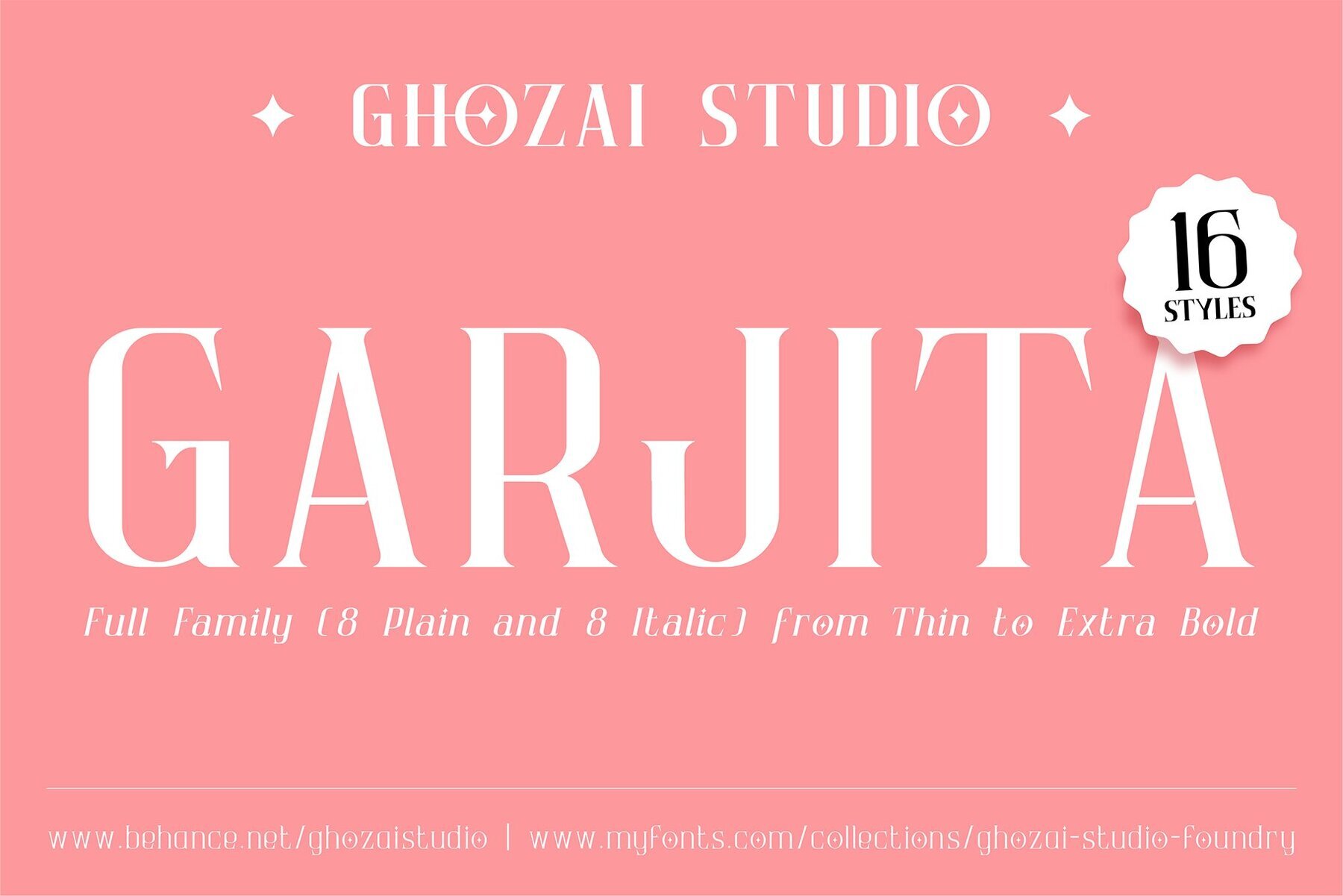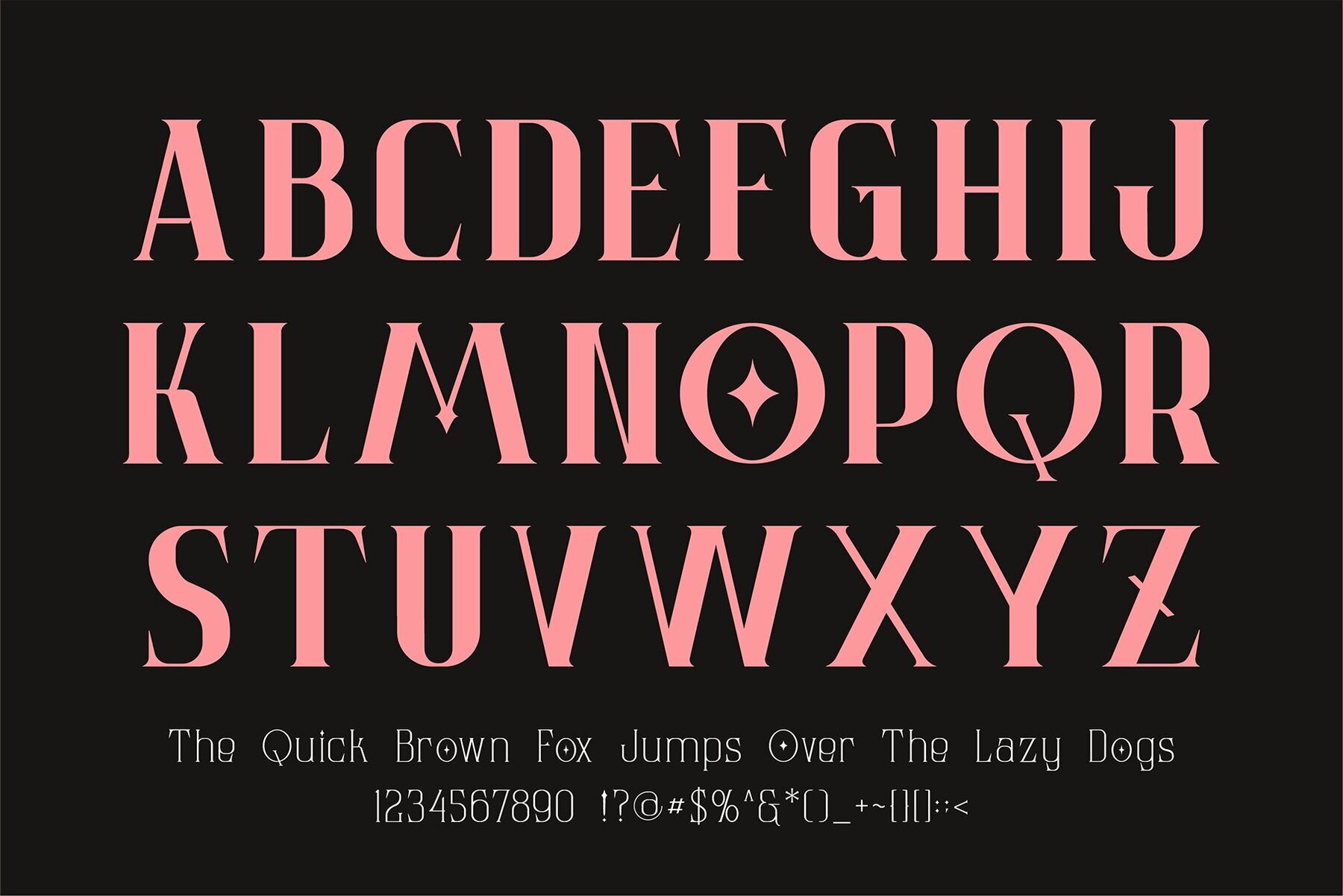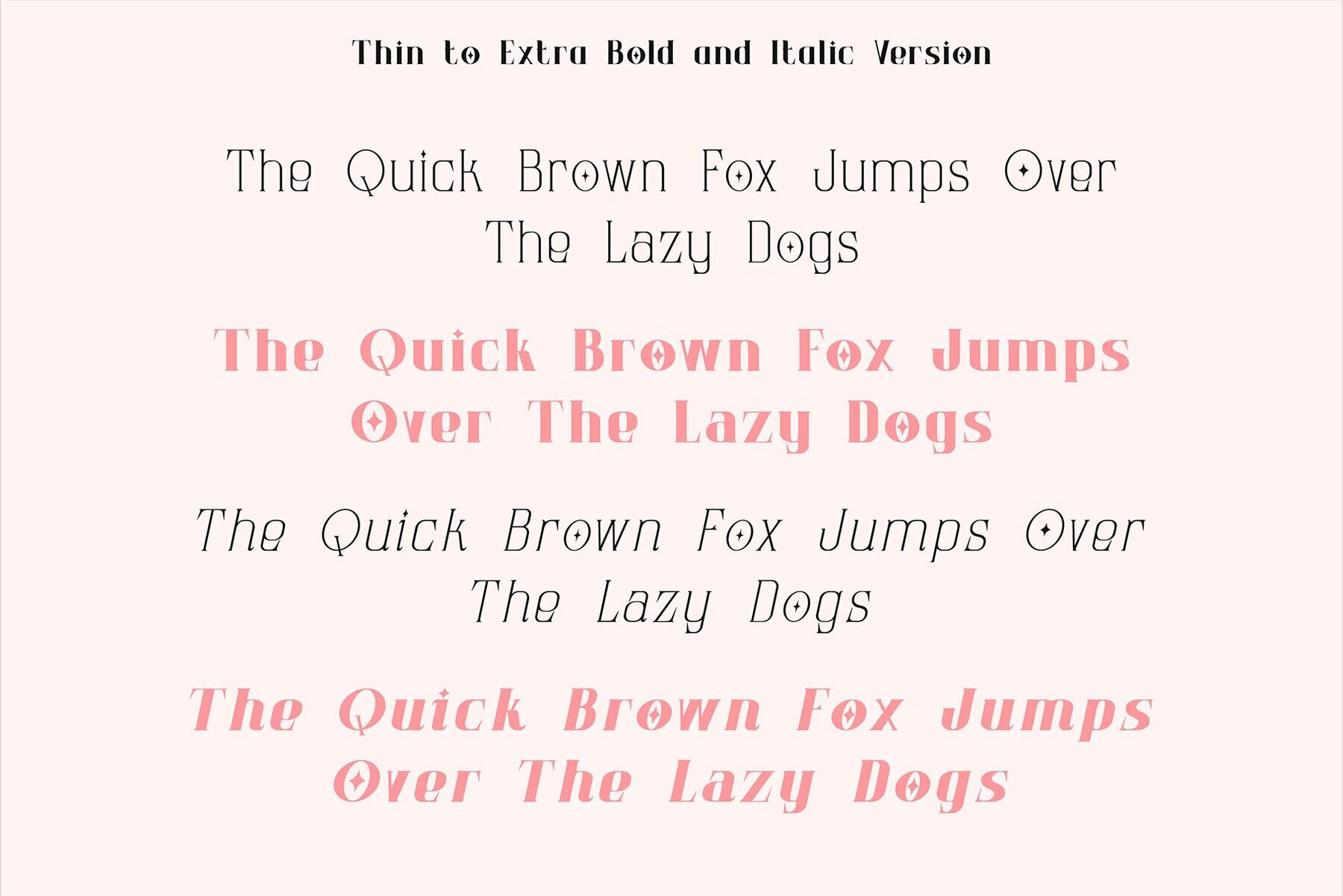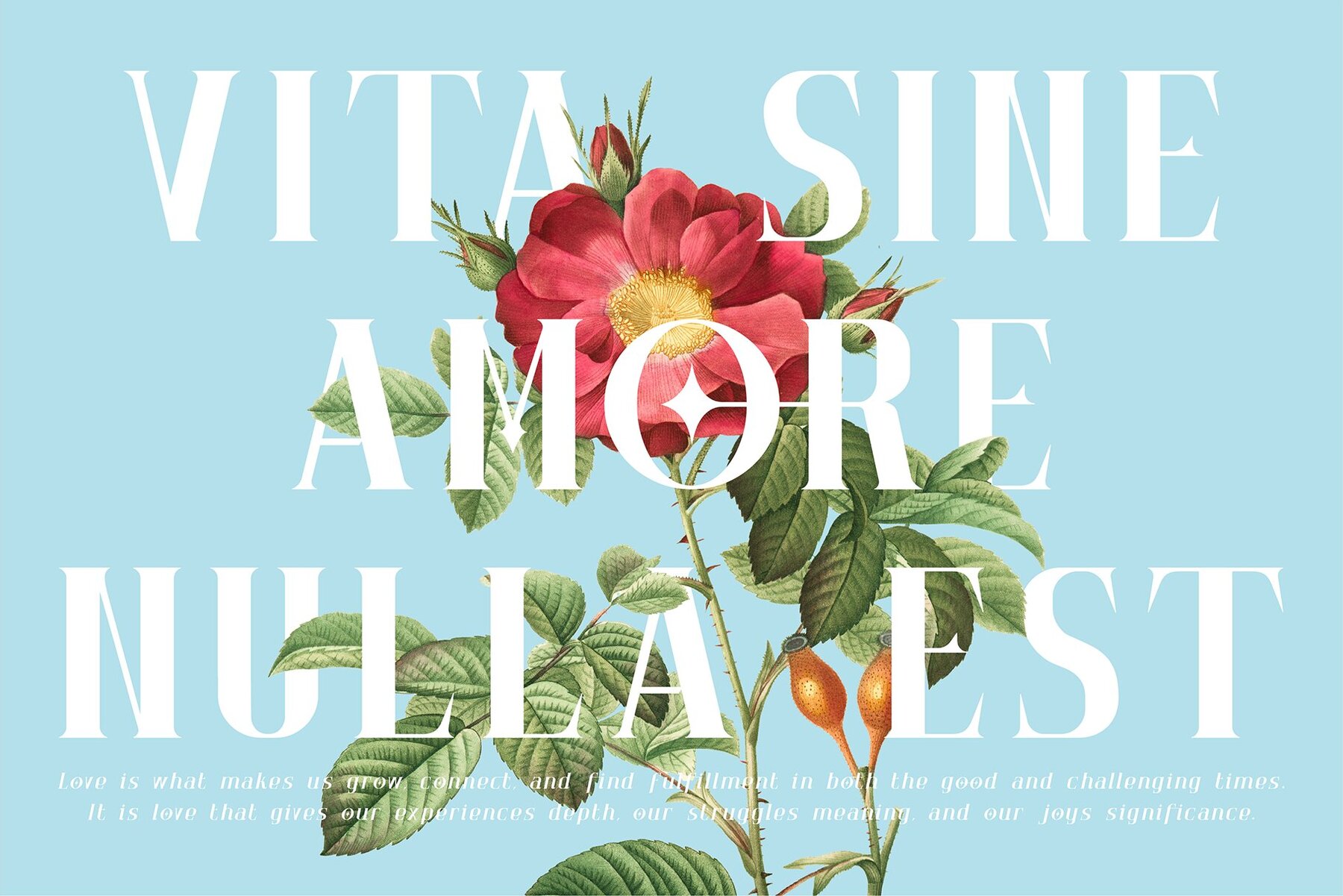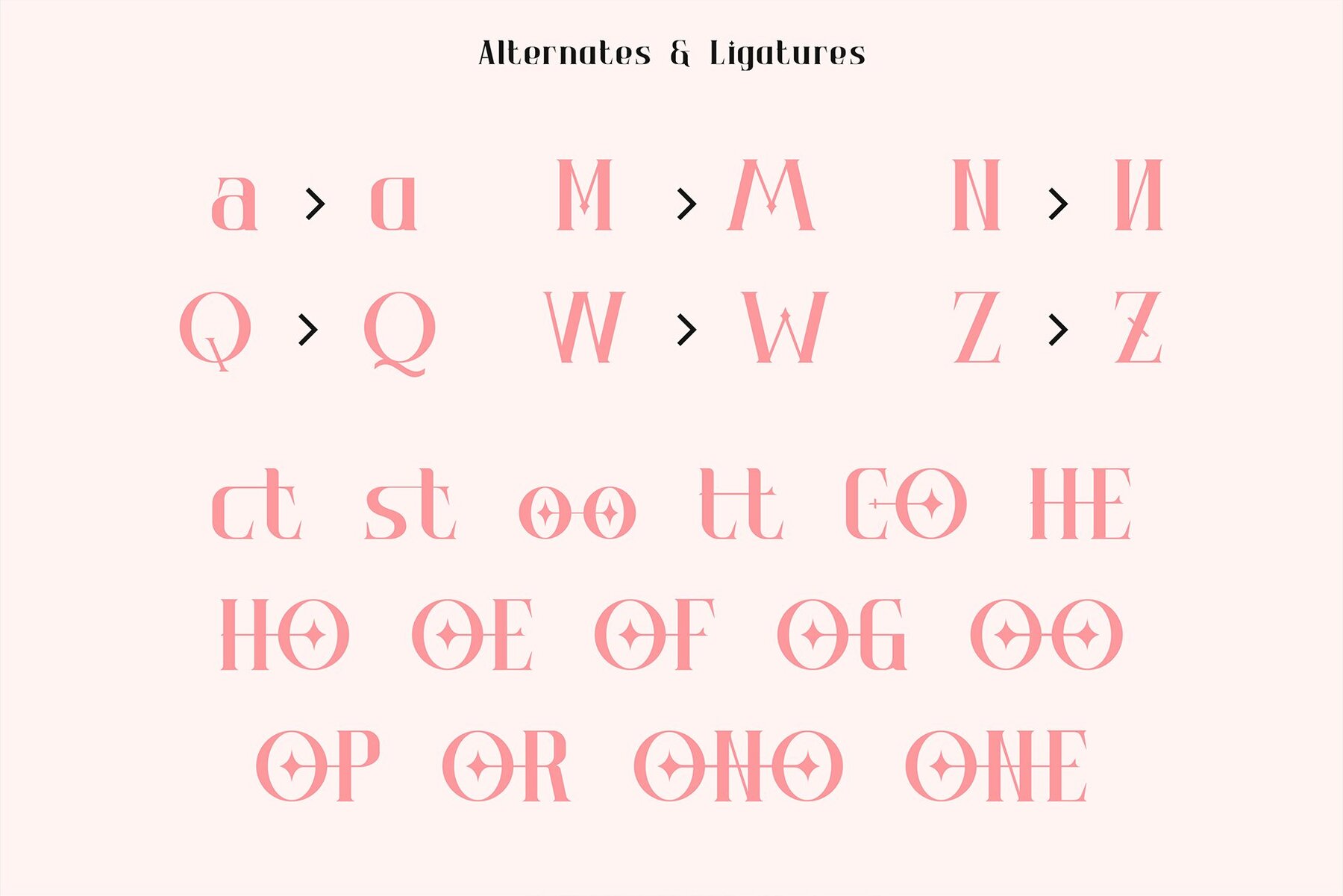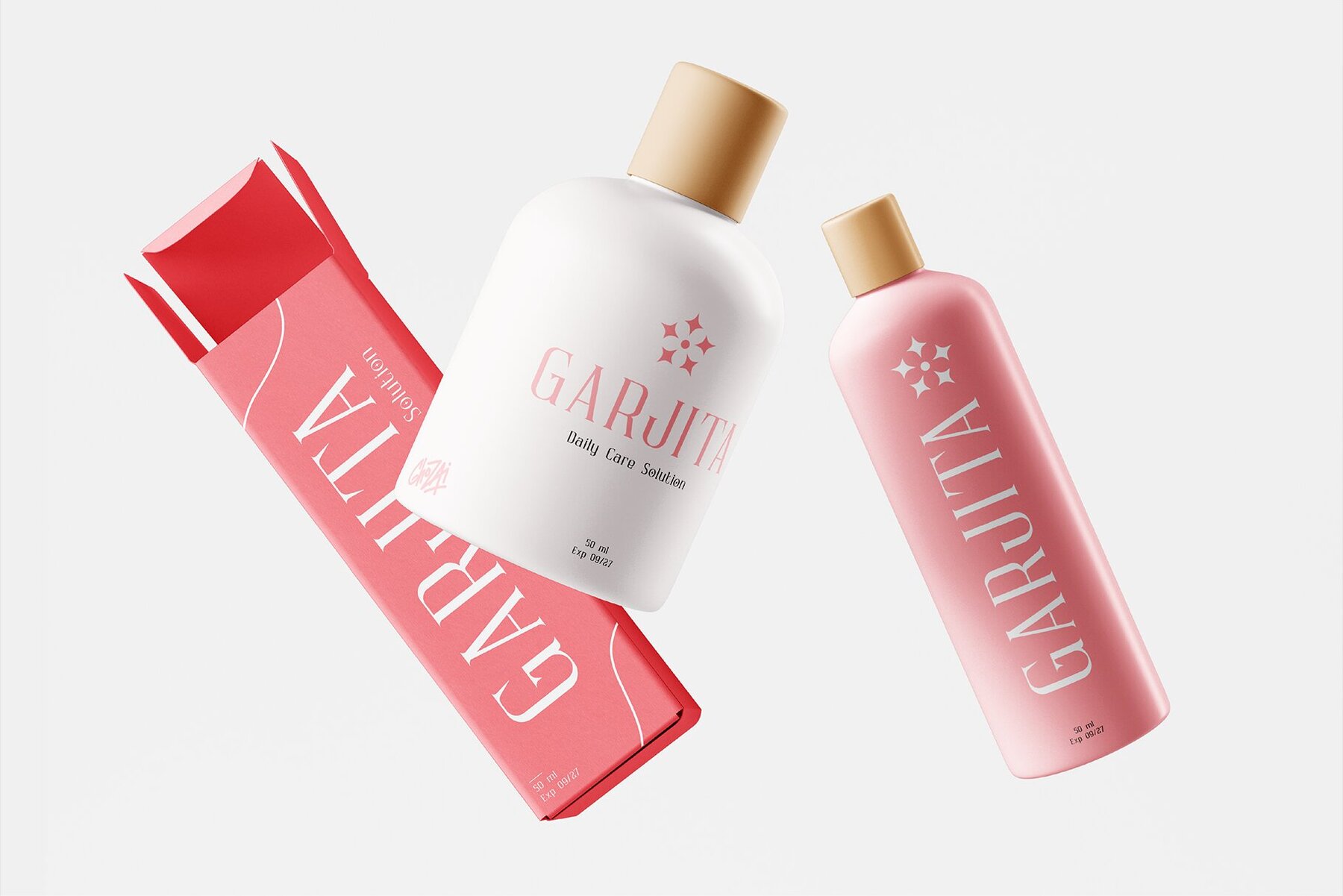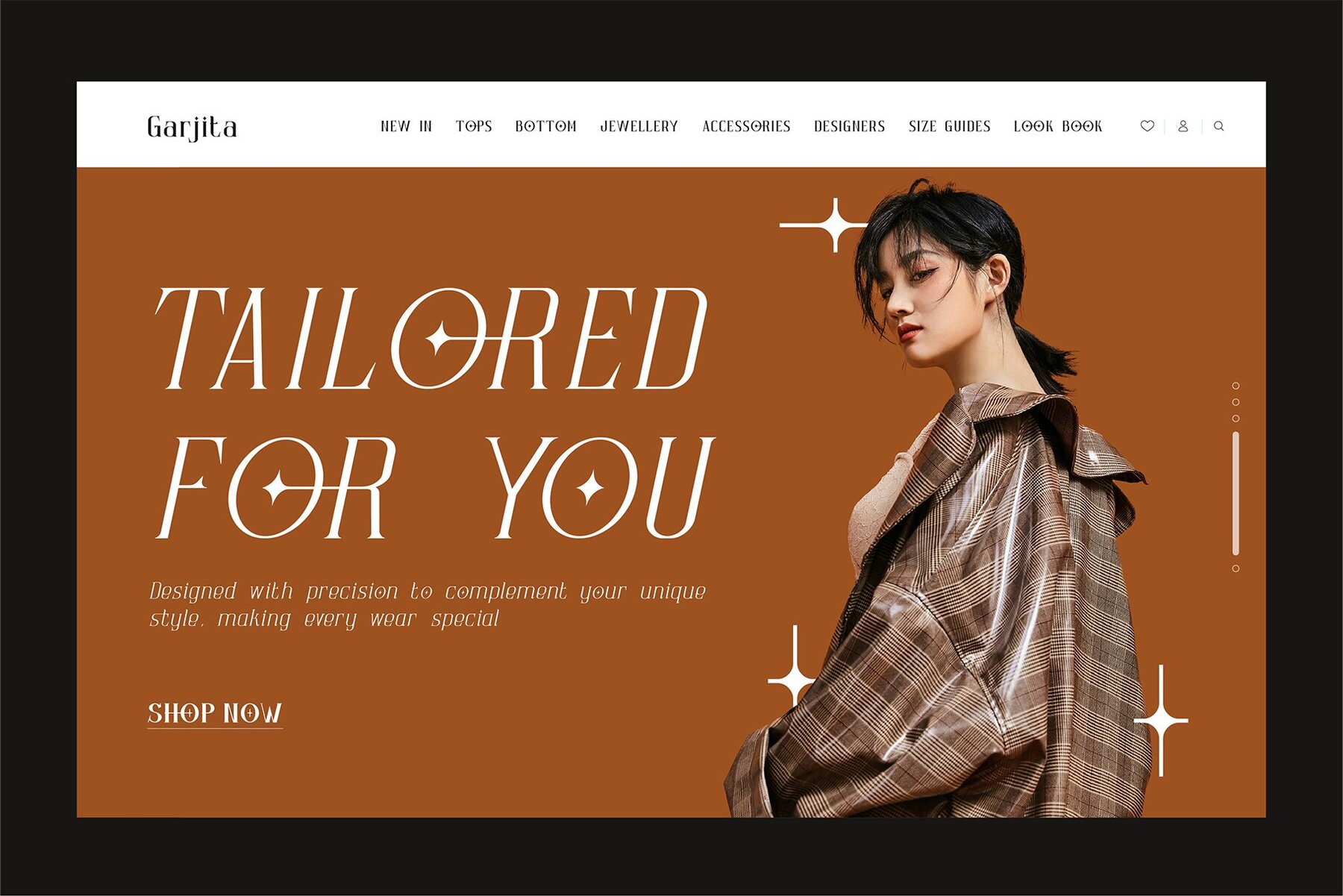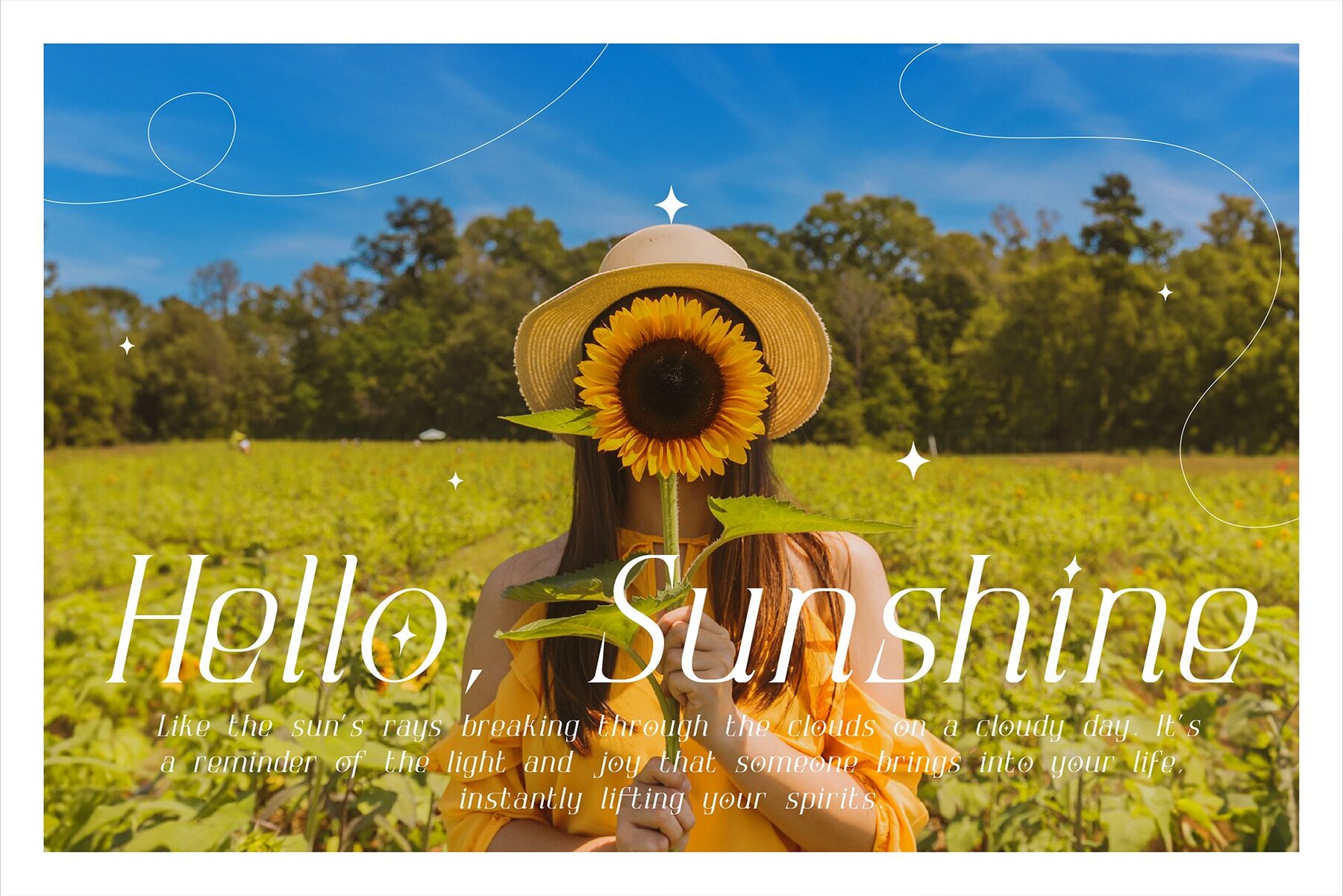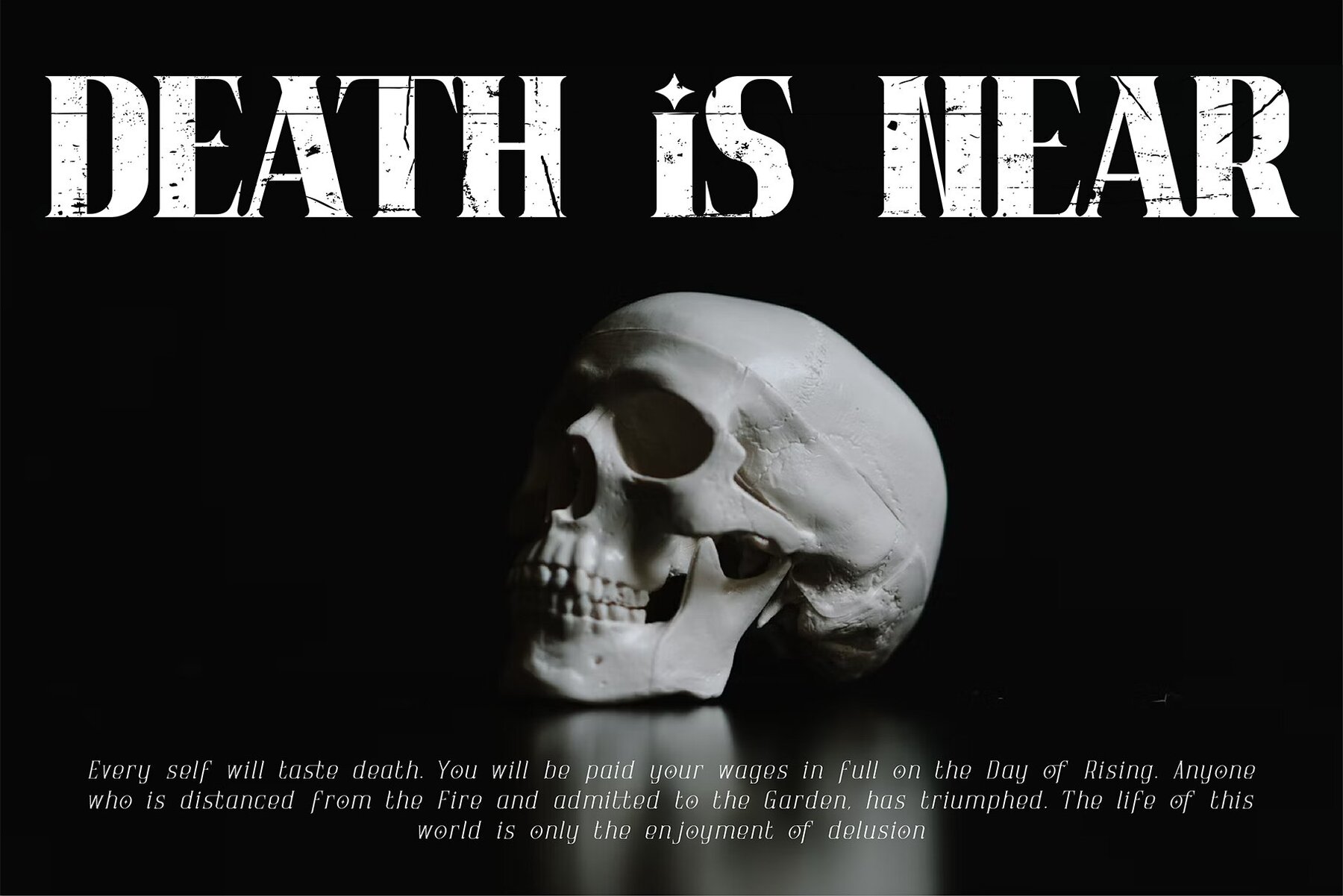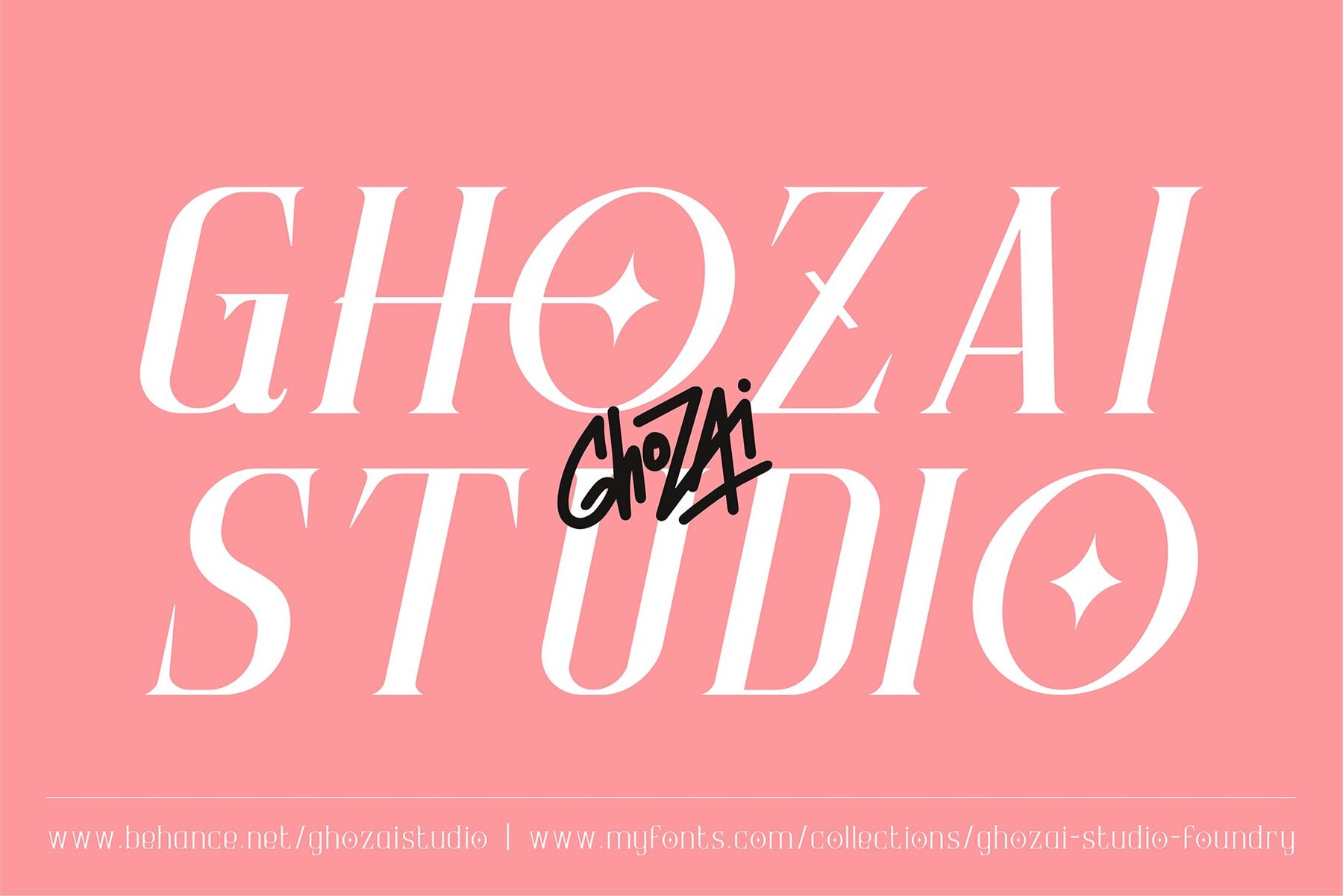
Garjita Font
Garjita is a sophisticated serif font that merges delicate and bold strokes, accented with a striking star motif to captivate and engage your audience. It combines modern and classic elements, making it ideal for a variety of applications, including luxury design projects such as hotel logos, restaurant menus, wedding invitations, fashion layouts, band posters, and headlines. Its versatile nature allows it to enhance both contemporary and traditional designs alike.
Available in 16 distinct styles—comprising 8 plain and 8 italic variants—Garjita ranges from thin to extra bold, meeting diverse aesthetic requirements. This font also boasts an extensive collection of ligatures and alternate styles, offering designers a multitude of options to customize and refine their creative projects. With its unique blend of elegance and functionality, Garjita emerges as an essential tool for projects seeking both flair and high-quality readability.